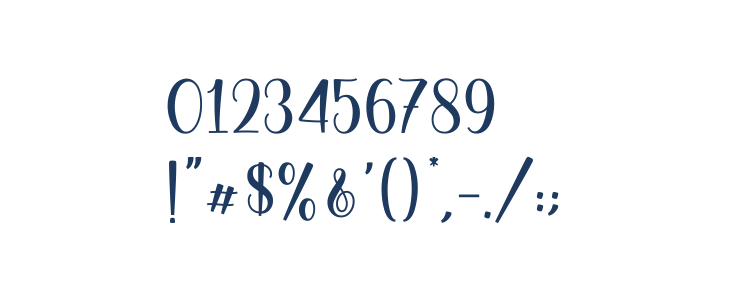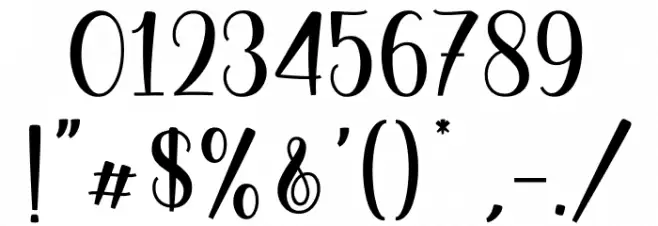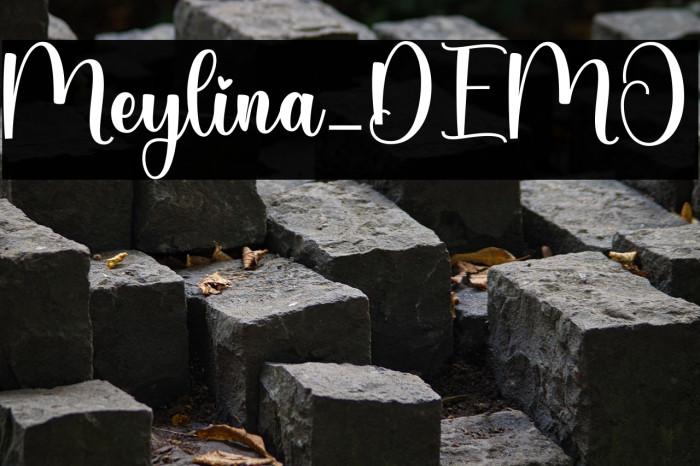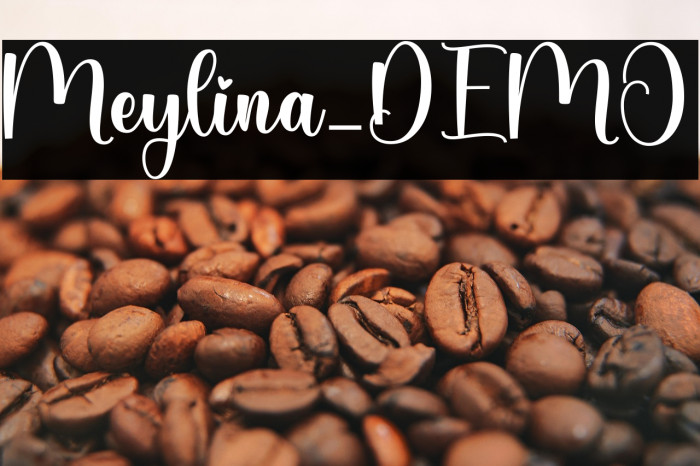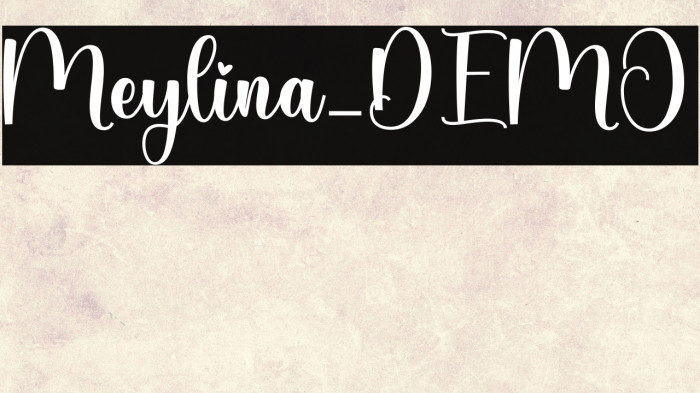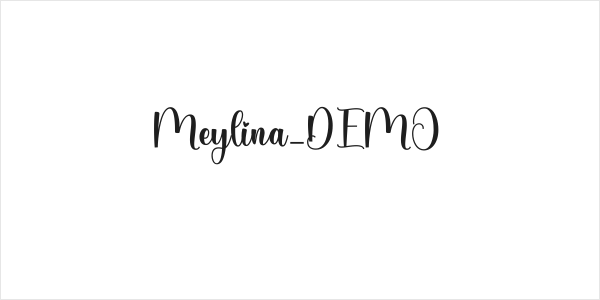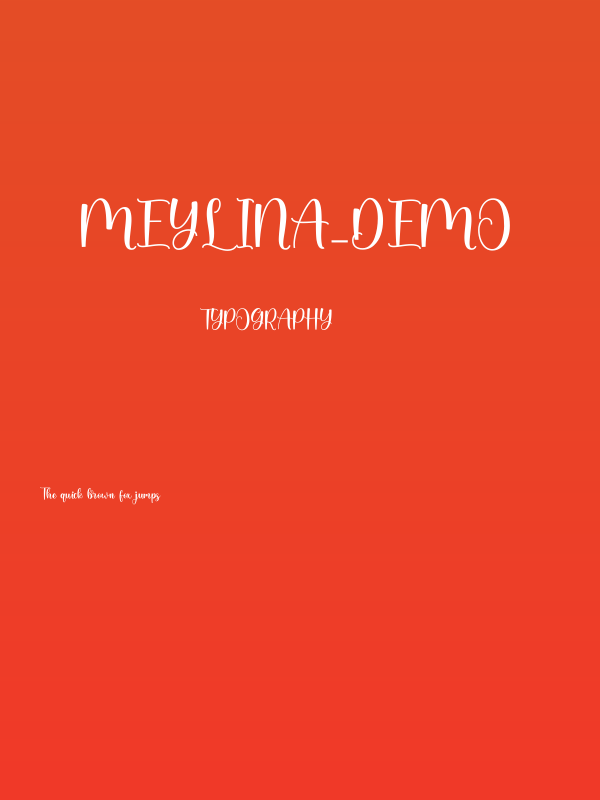
Meylina_DEMO Font
Meylina_DEMO Description
This font features a playful and elegant script style with a handwritten feel. The uppercase letters are tall and slightly narrow, with a consistent stroke width that gives them a bold appearance. The lowercase letters are more fluid and connected, adding a sense of movement and grace. The numbers are clear and easy to read, maintaining the same playful style. Special characters are creatively designed, fitting seamlessly with the overall aesthetic. This font is perfect for projects that require a personal touch, such as invitations, greeting cards, or branding materials.